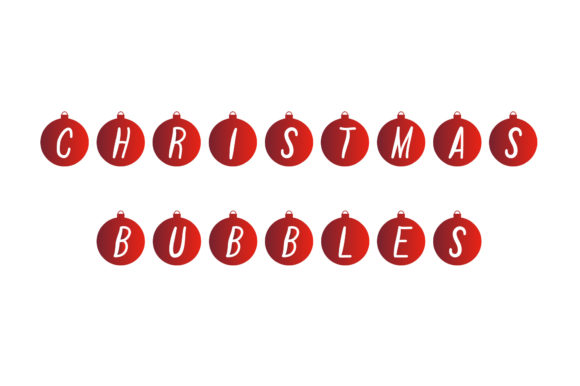
Journey into the enchanting realm of festive typography with Christmas Bubbles Font, a charming decorative font family that evokes the true spirit of Christmas. Designed by the talented Vladimir Carrer, Christmas Bubbles is a delightful font crafted to bring warmth and cheer to your creative projects. Each letter dances with joy, embodying the magic and wonder of the holiday season.
With Christmas Bubbles Font, transform your Christmas cards into heartfelt expressions of love and merriments. Let the whimsical characters adorn your designs, adding a touch of playfulness and personality. Embrace the joy of the season and let your imagination soar as you craft unique invitations, festive posters, and eye-catching social media graphics.
Whether you're a seasoned designer or a creative enthusiast, Christmas Bubbles Font is your perfect companion for capturing the essence of Christmas. Its versatile nature allows you to effortlessly add a festive touch to any project, spreading holiday cheer wherever it goes. Let your creativity sparkle and embrace the magic of Christmas with Christmas Bubbles Font.